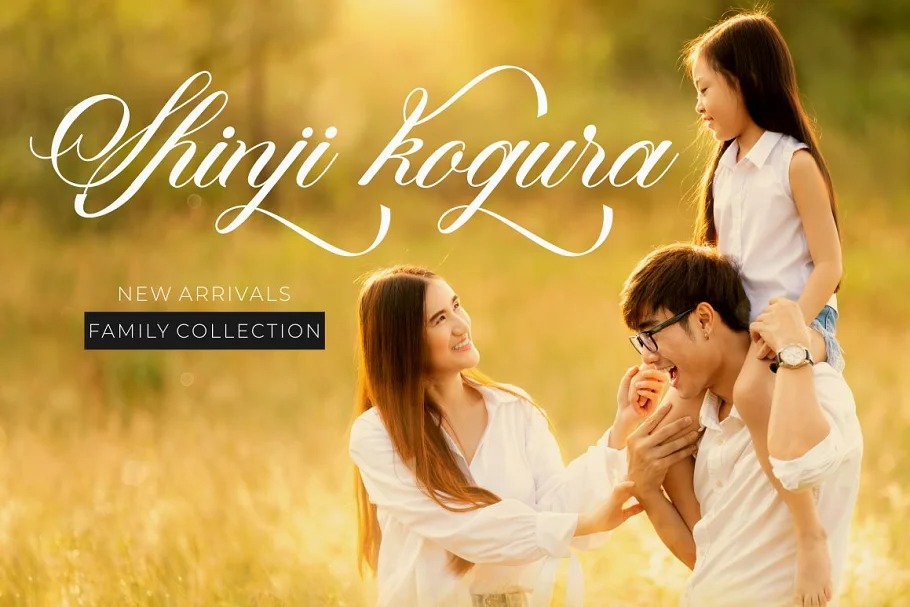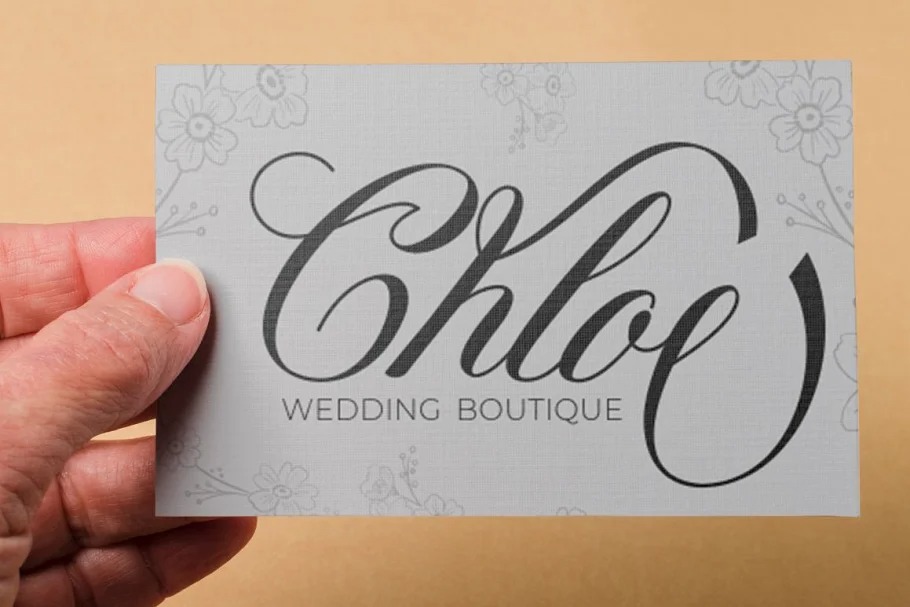
Paperlight Calligraphy Font is a modern calligraphy design, including Regular. This font is casual and beautiful with swash. This calligraphy harmony gives the impression of being luxurious, free and sophisticated. The body text of Paperlight Script font has been designed with high details, precisely, smooth and flow.
Paperlight Script font carefully designed to work together harmoniously making it perfect for wedding media, book covers, greeting cards, logos, branding, business cards and certificates, even for any design work that requires classic, formal or luxurious.